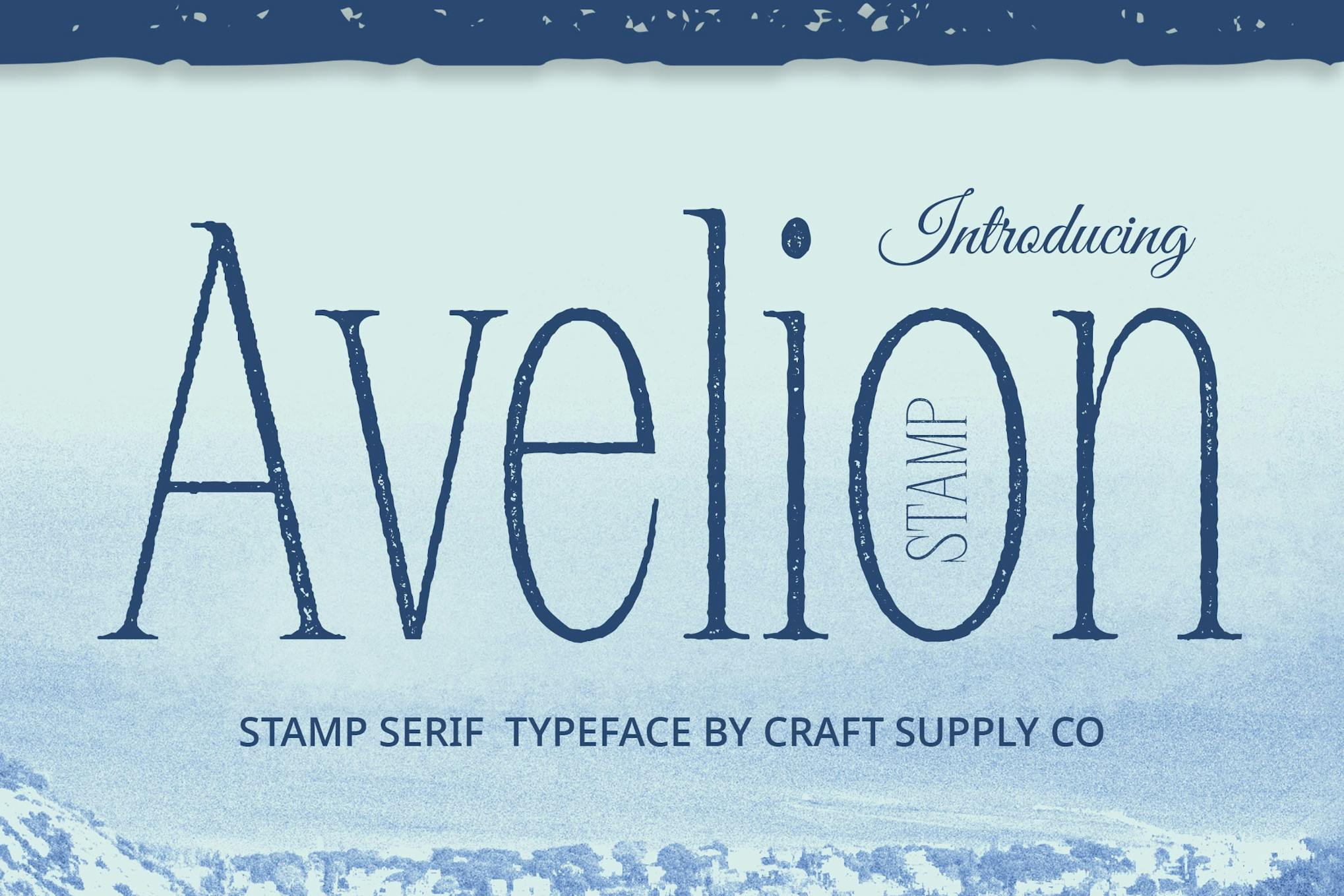
Avelion Stamp Font
Perfect for vintage branding, posters, logos, packaging, social media designs, and apparel graphics.
The Avelion Stamp Font excites designers with its authentic stamped texture that brings a rugged, handcrafted look full of character and charm.
The Avelion Stamp Font Free Download is a textured typeface crafted to add a nostalgic, vintage vibe to your designs. Its rough, stamped effect gives your typography an organic, weathered feel ideal for projects that want to stand out with personality. Whether designing logos, posters, or packaging, Avelion Stamp infuses your work with bold impact.
One of the key strengths of Avelion Stamp Font is its balance between gritty texture and clear readability. Despite its rough style, it remains legible and strong in headlines and display text, ensuring your message hits with power and clarity.
In branding, Avelion Stamp conveys authenticity, creativity, and a handcrafted spirit. It pairs perfectly with earthy color palettes, distressed backgrounds, and retro-inspired visuals, helping brands craft a genuine, memorable identity.
For digital projects, this font enhances website headers, social media posts, and promotional materials with its vintage stamped style. Its unique design makes your digital content pop with bold, rugged personality.